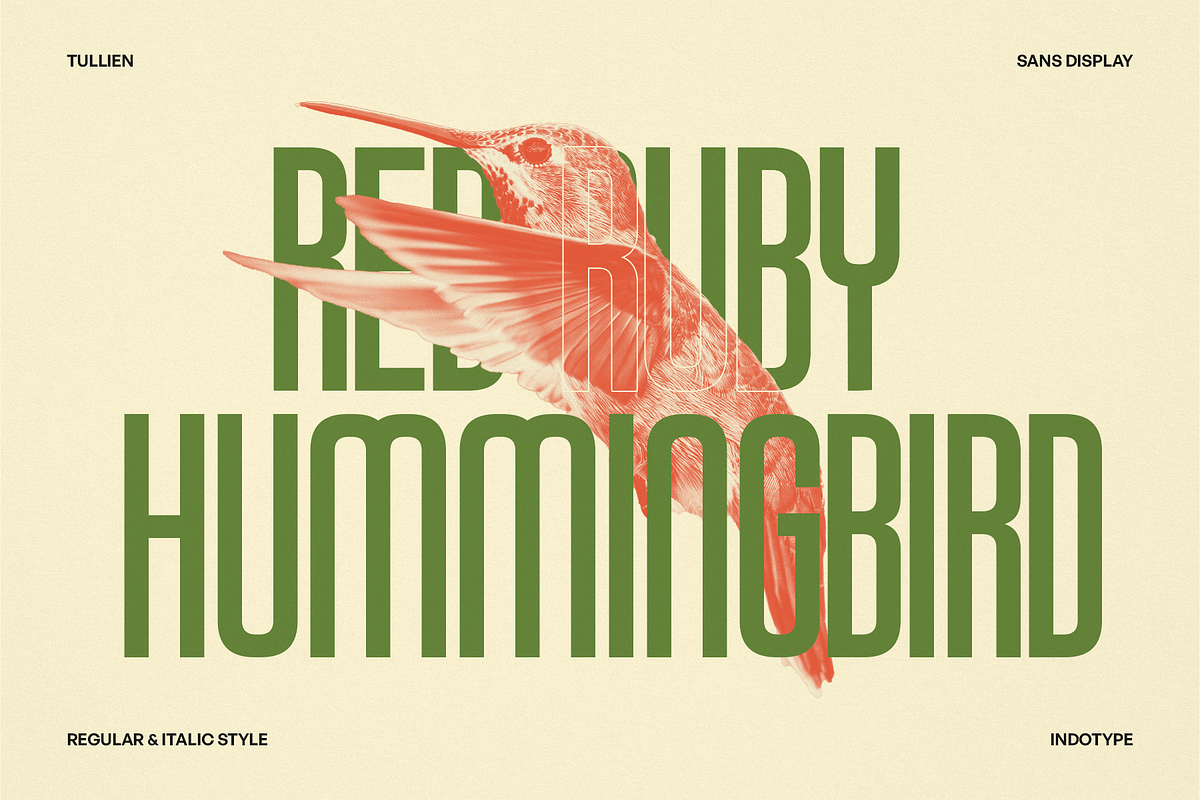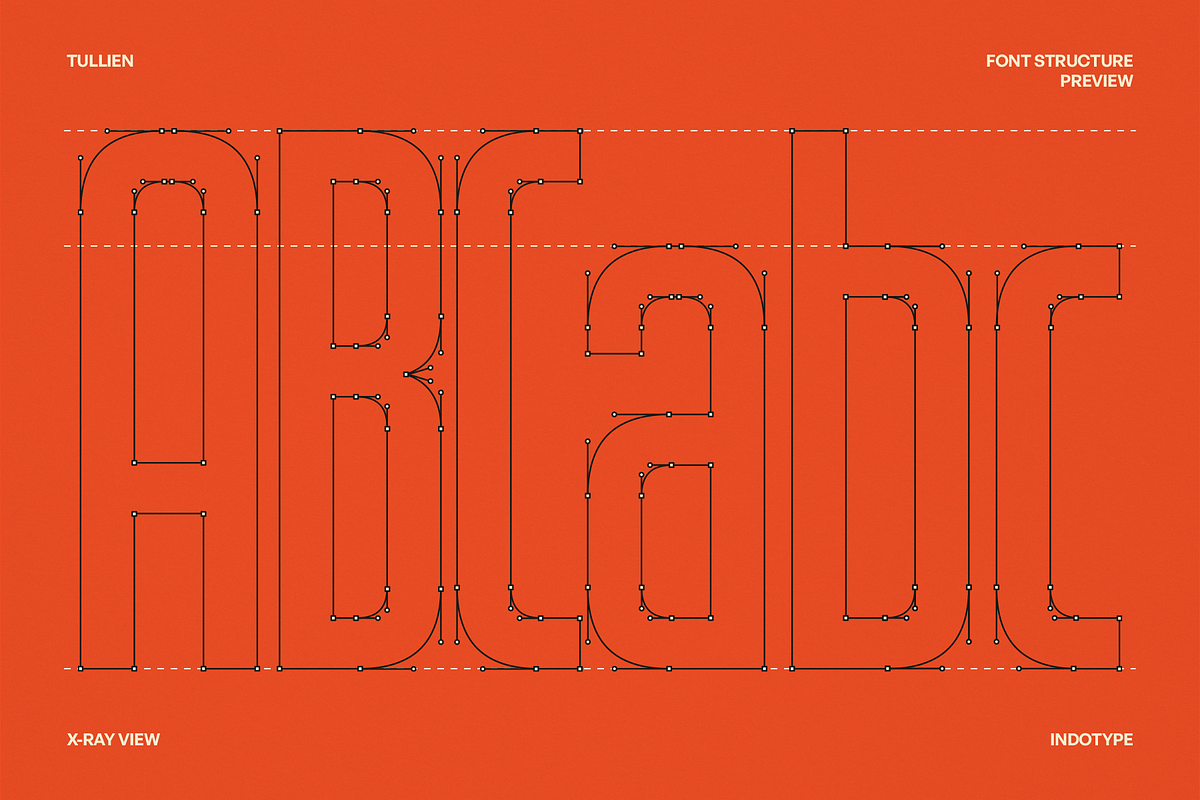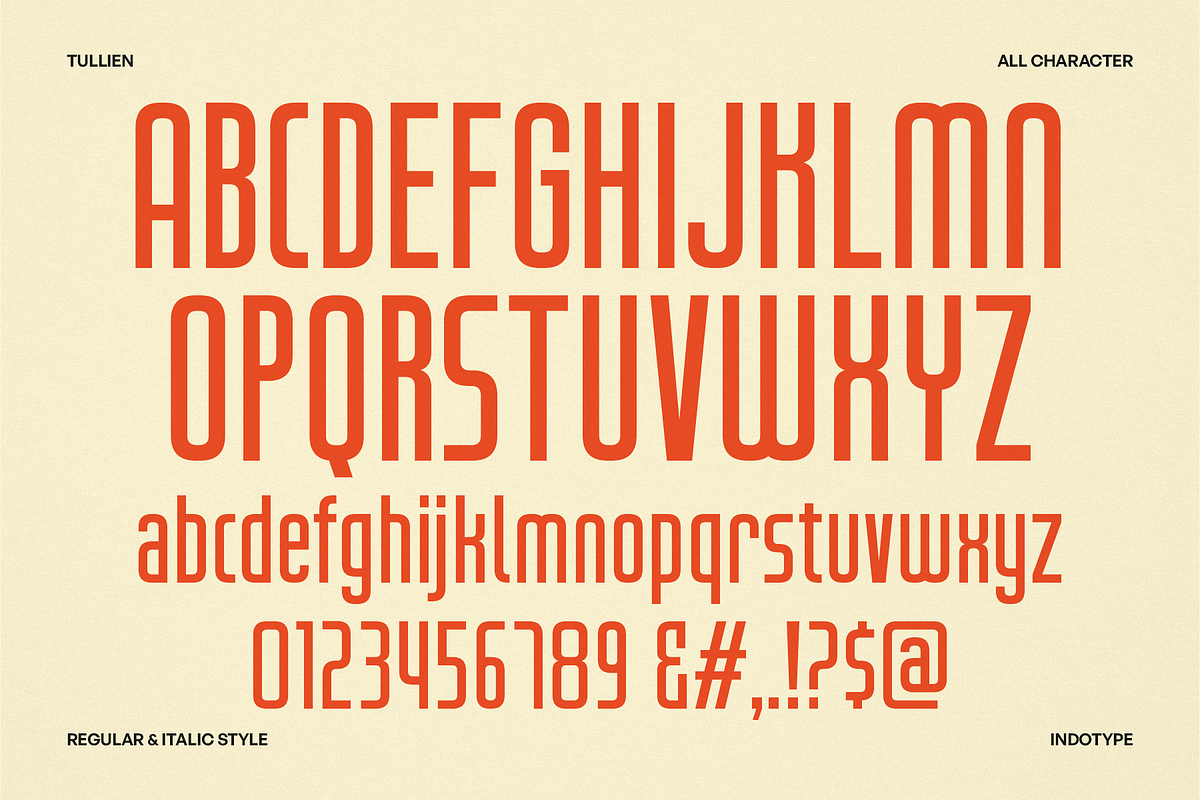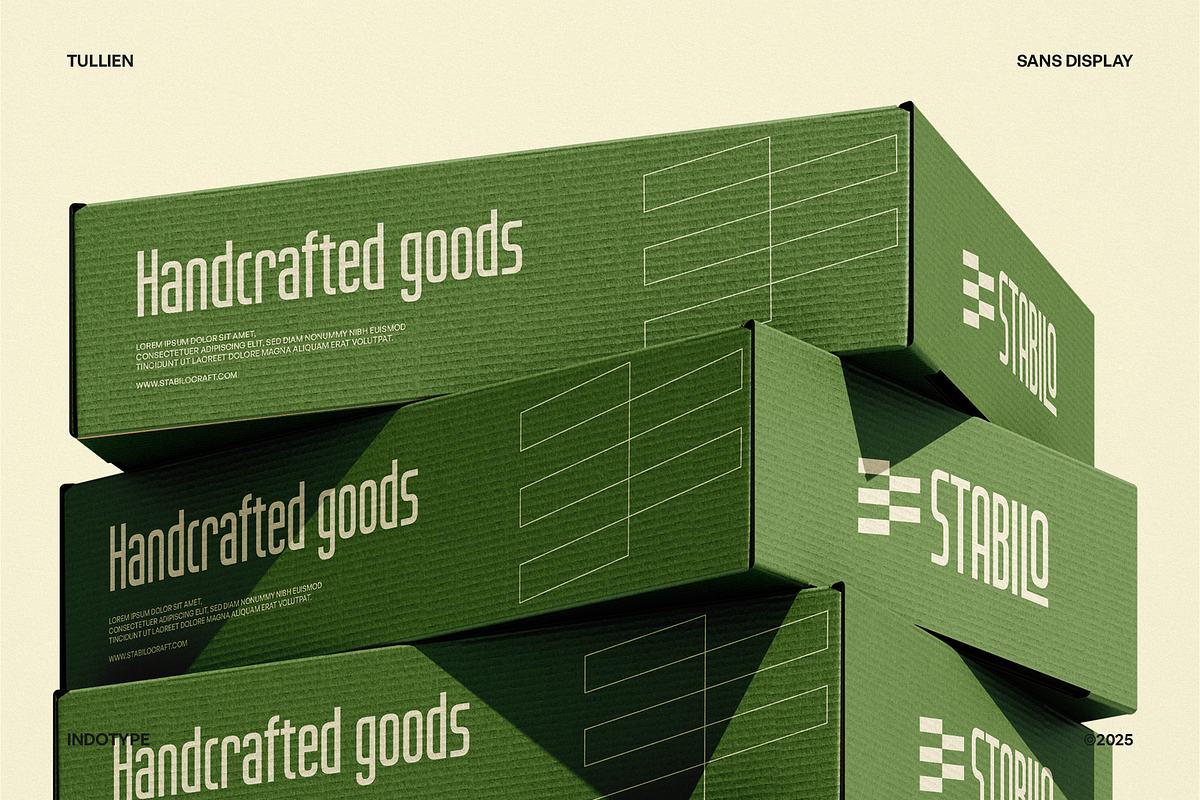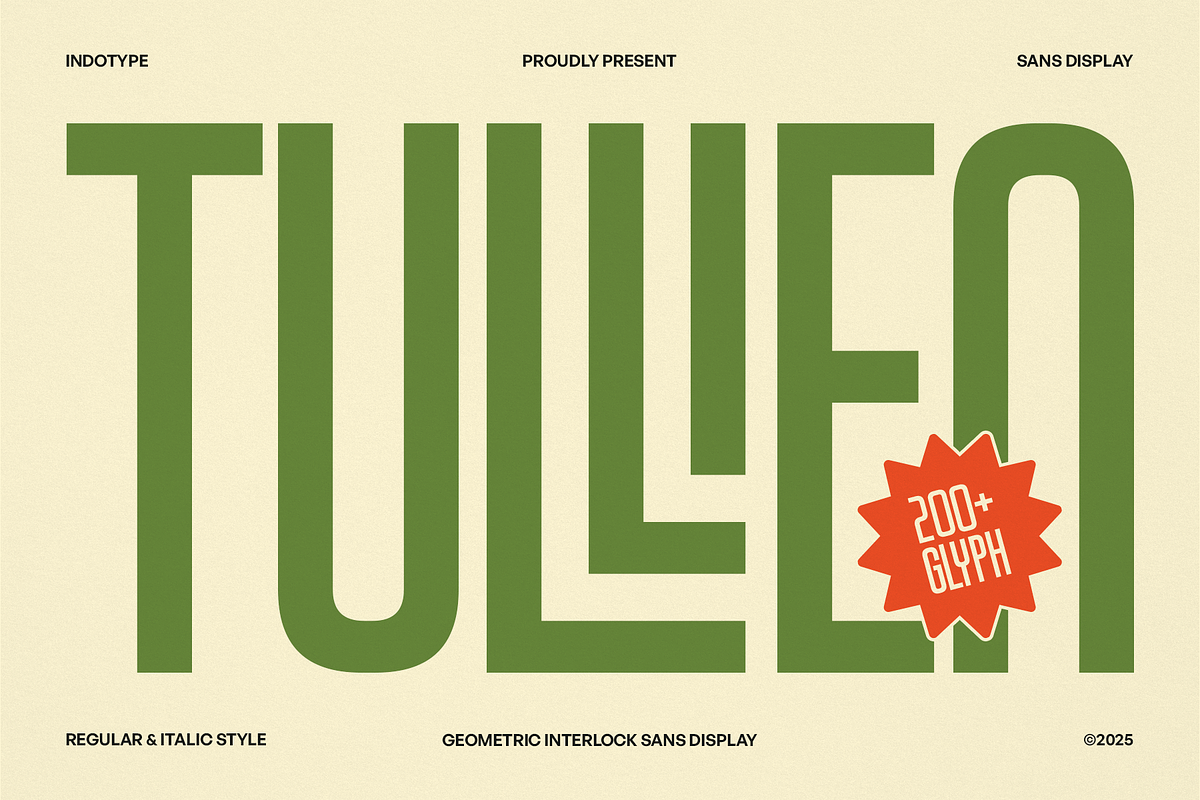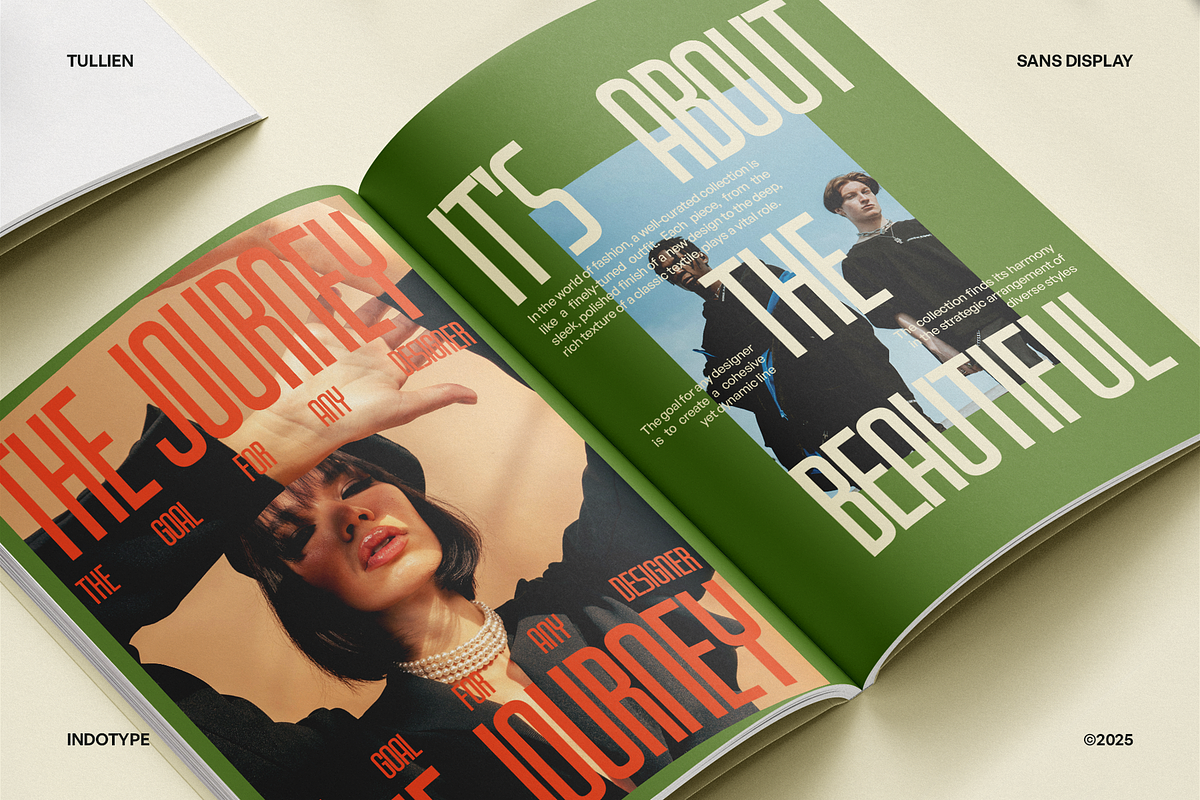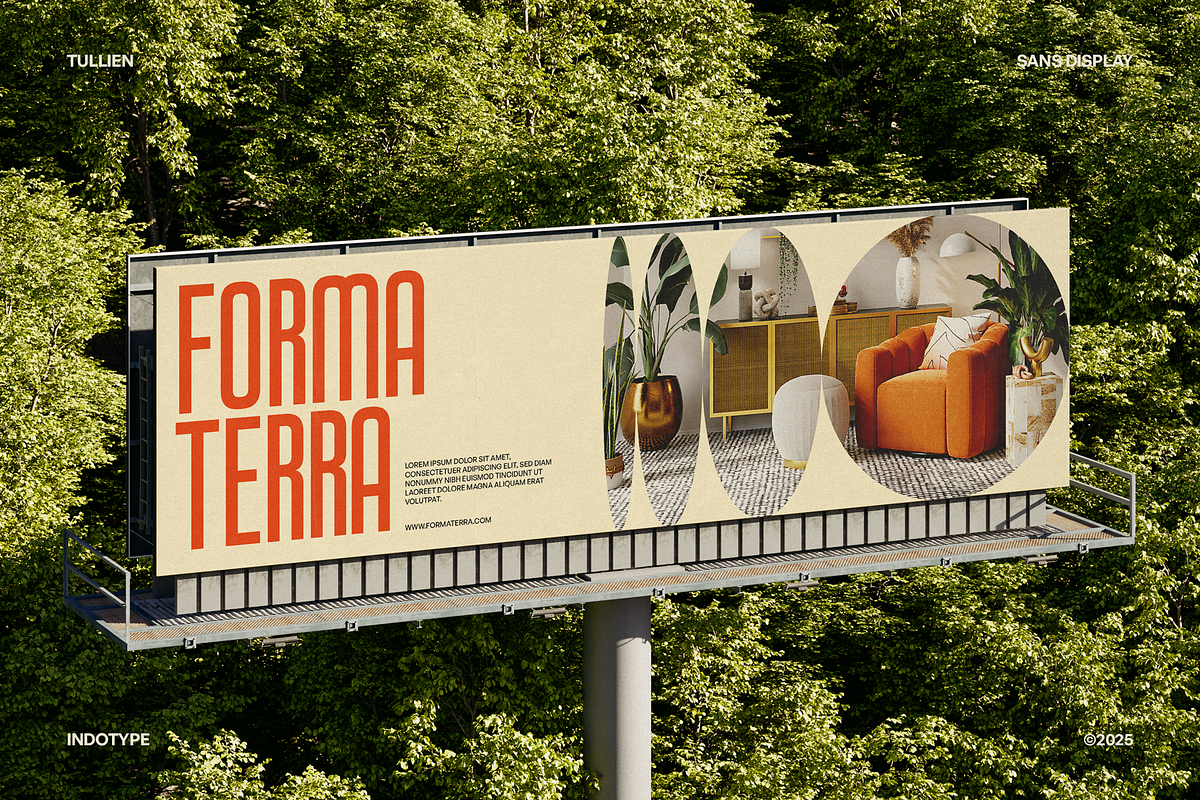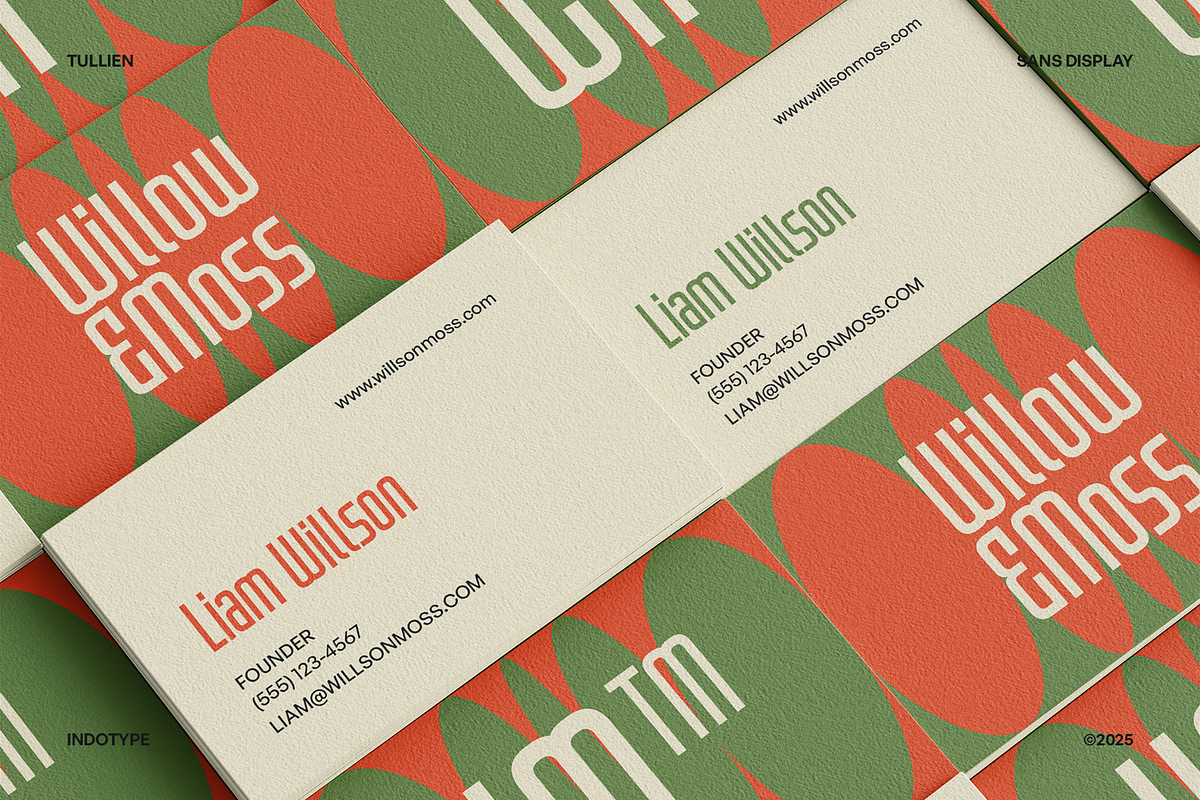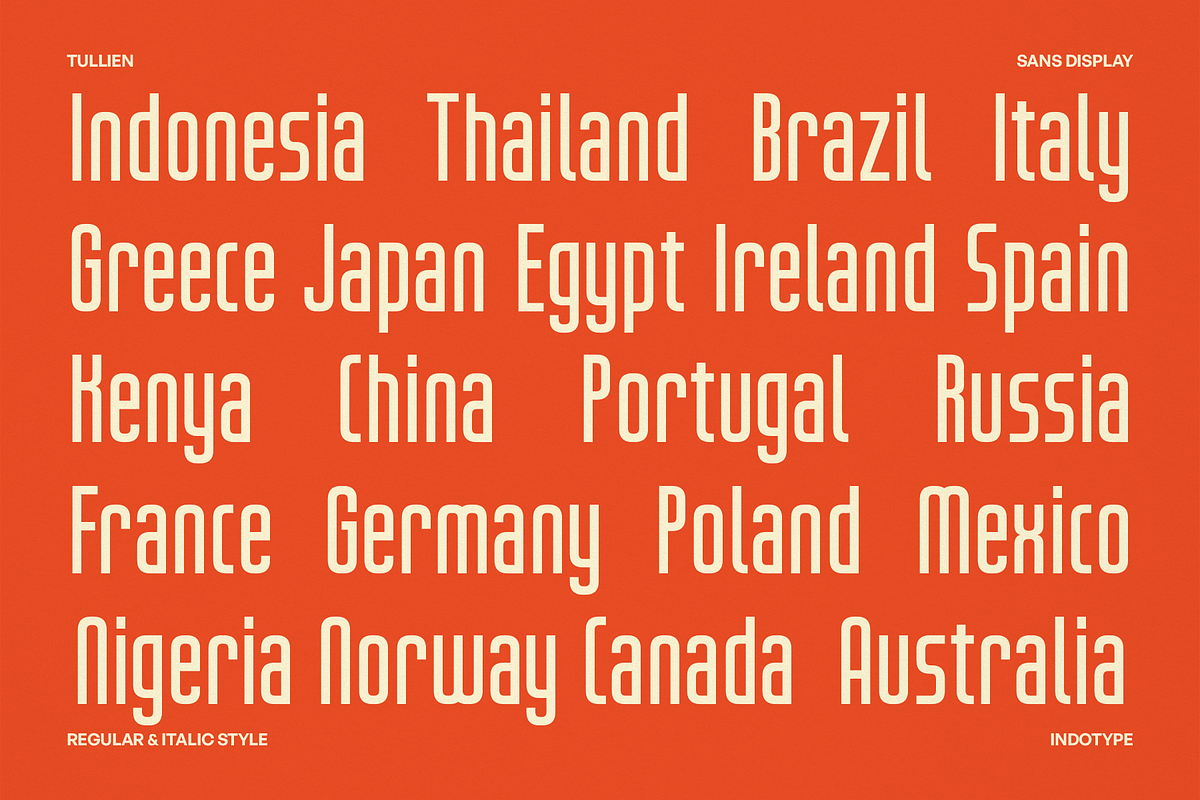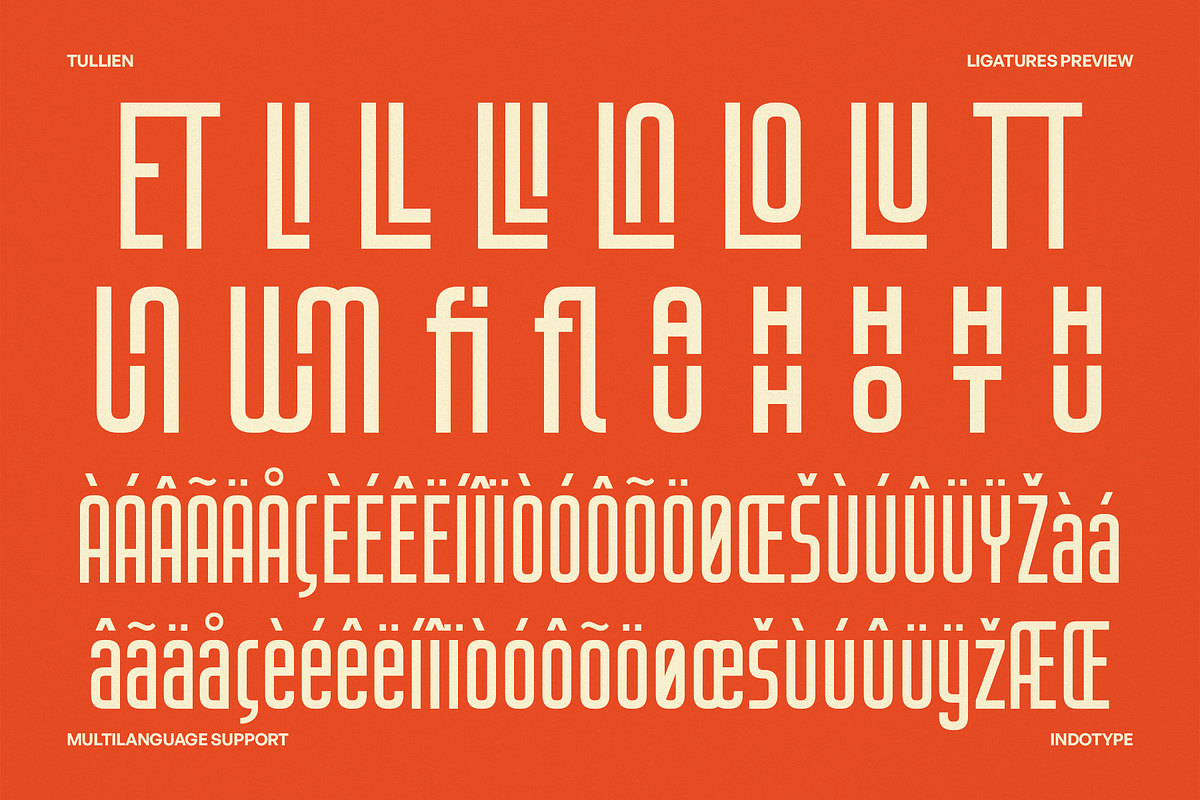
Tullien - Geometric Interlock Sans
Tullien is a geometric interlock sans display typeface built with bold modular precision and futuristic personality. Each letter is constructed from clean verticals, tight curves, and interconnected strokes that create a sense of rhythm and symmetry — perfect for modern visual identities and experimental typography. Designed by Indotype (2025), Tullien reimagines geometric sans forms with architectural logic and interlocking letter structures, blending clarity and creativity in a single system. Its tall proportions and compact counter spaces make it strikingly strong in headlines, posters, album covers, and editorial design. With over 200 glyphs, Regular & Italic styles, and uppercase-focused precision, Tullien delivers flexibility while maintaining its bold, mechanical aesthetic. Whether you’re creating futuristic layouts or minimalist branding, Tullien brings a distinct typographic presence that feels both modernist and timeless.